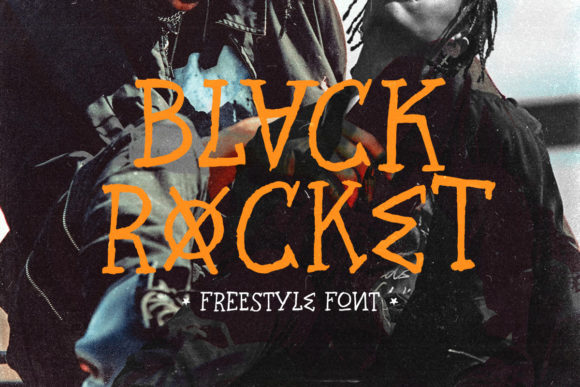
The Creepy Charm of Black Rocket Font: A Designer’s Delight
I still remember the design project that led me to discover Black Rocket Font. I was working on a t-shirt design for a client who wanted a bold, eye-catching look with a street art vibe. I had spent hours browsing through font libraries, but nothing seemed quite right. That was when I stumbled upon Black Rocket Font, a graffiti-styled display font that instantly caught my attention. Its creepy, urban feel was perfect for the project, and I’ve been hooked ever since.
An Honest Review of Black Rocket Font
• ✨ Unique graffiti-styled design that adds a touch of street art to any project
• ✅ Highly legible, even in larger sizes
• ✅ Extensive character set, including glyphs and stylistic alternates
• ✅ Perfect for designs that require a bold, edgy look, such as t-shirts, sportswear, logos, and advertisements
While Black Rocket Font is an excellent choice for many projects, there are a few things to keep in mind:
• ⚠️ The font’s bold, graffiti-styled design may not be suitable for more formal or traditional projects
• 🤔 Some users have reported issues with kerning, particularly when using the font in smaller sizes
A Practical Guide to Using Black Rocket Font
The Backstory of Black Rocket Font
Black Rocket Font was designed by a team of creatives who wanted to capture the raw energy of street art. Inspired by the urban landscapes of major cities, they crafted a font that’s bold, edgy, and unapologetic. The result is a font that’s perfect for designers who want to add a touch of street art to their projects.
Font Name Black Rocket Font
Author letterhend
Q: What type of projects is Black Rocket Font best suited for?
A: Black Rocket Font is perfect for designs that require a bold, edgy look, such as t-shirts, sportswear, logos, and advertisements.
Q: Is Black Rocket Font easy to read?
A: Yes, despite its bold, graffiti-styled design, Black Rocket Font is highly legible, even in larger sizes.
Q: Can I use Black Rocket Font in digital designs?
A: Yes, Black Rocket Font is perfect for digital designs, including social media graphics, presentations, and more.